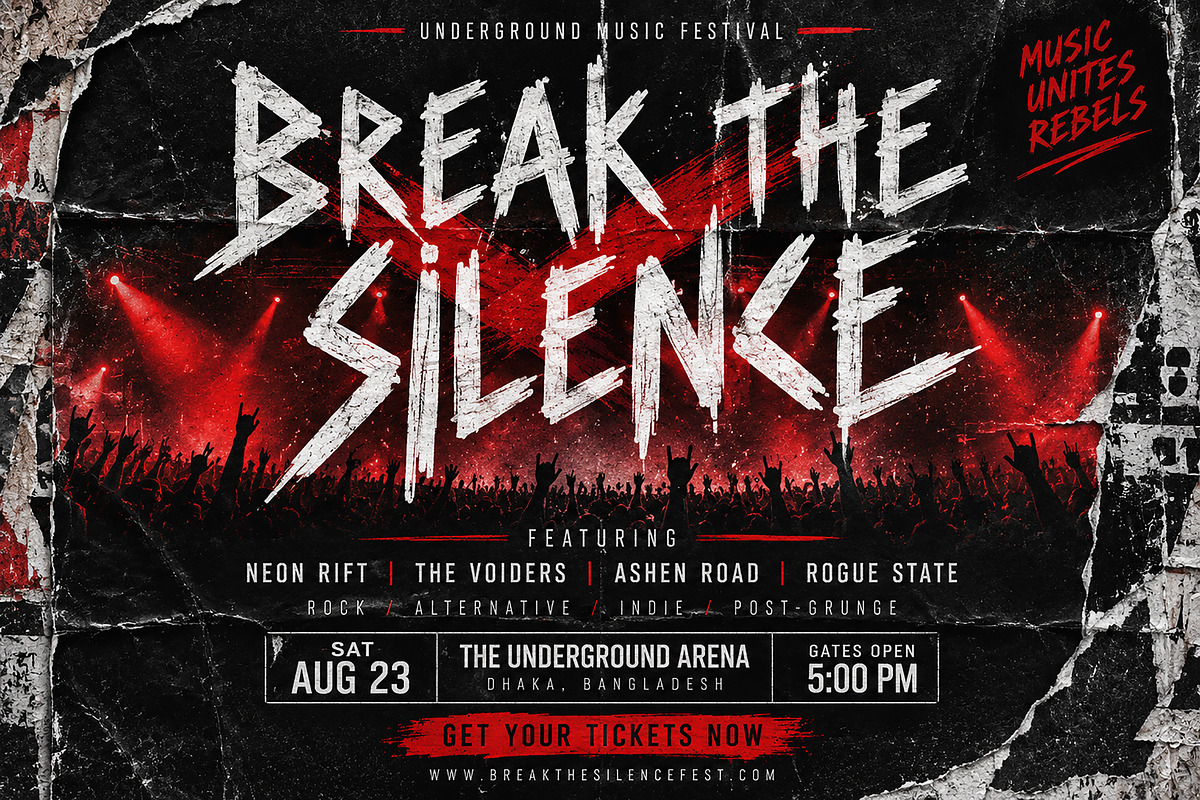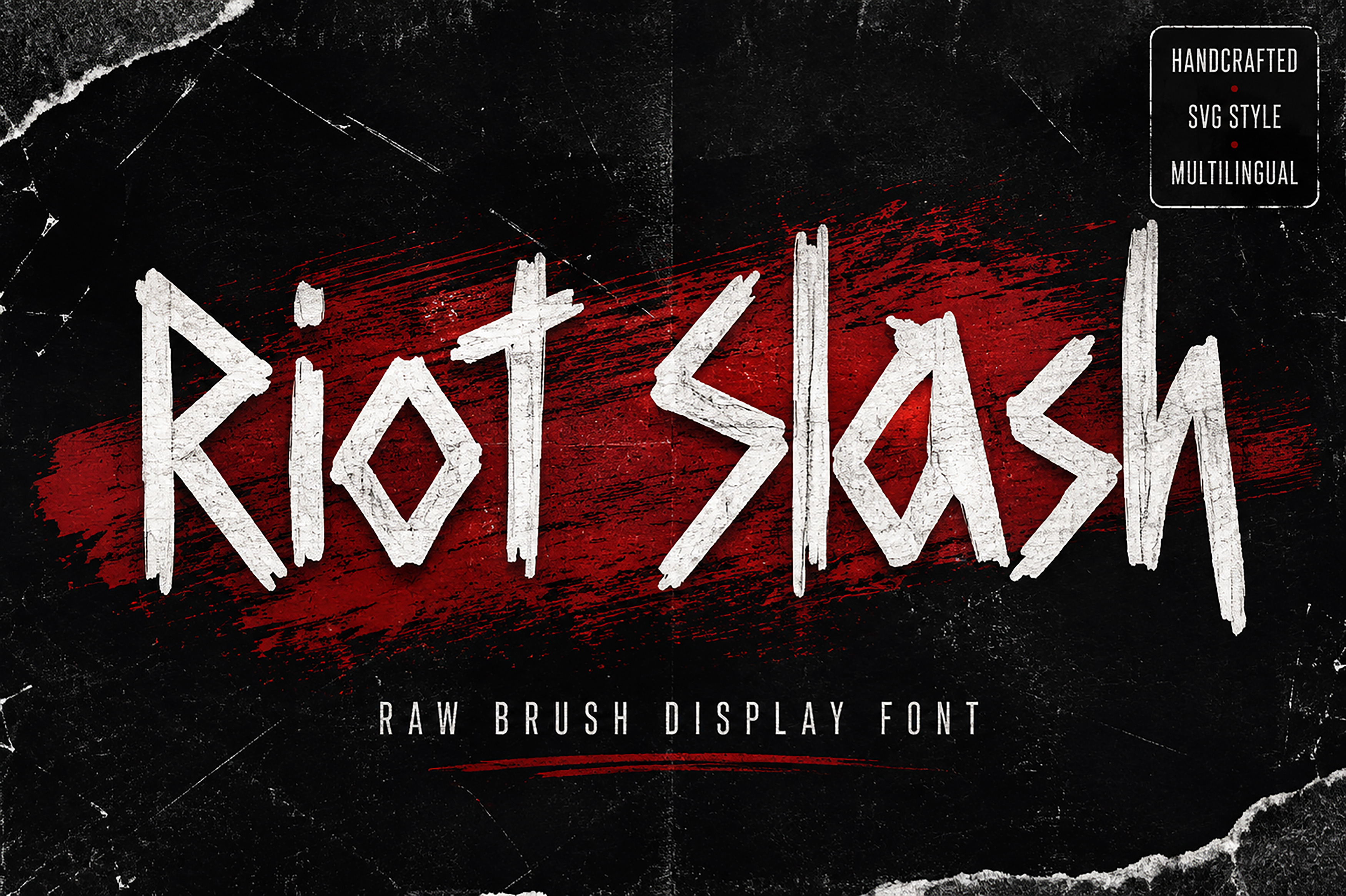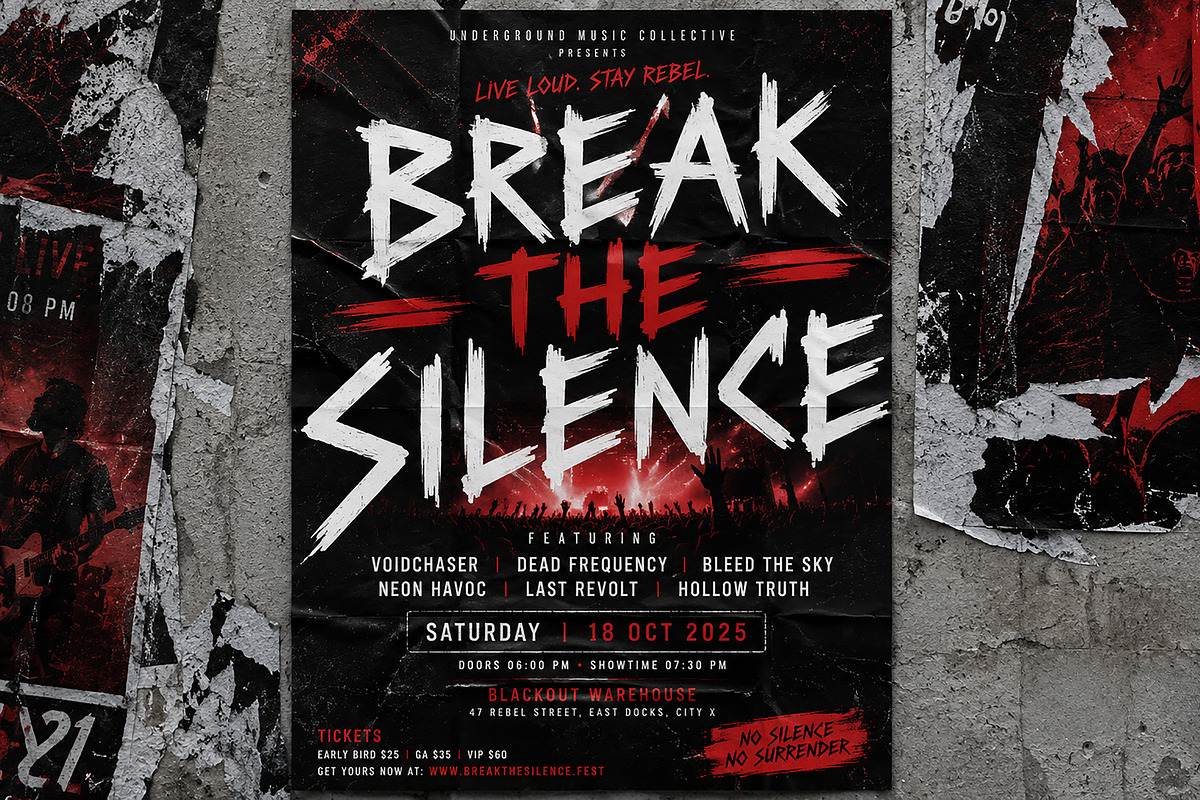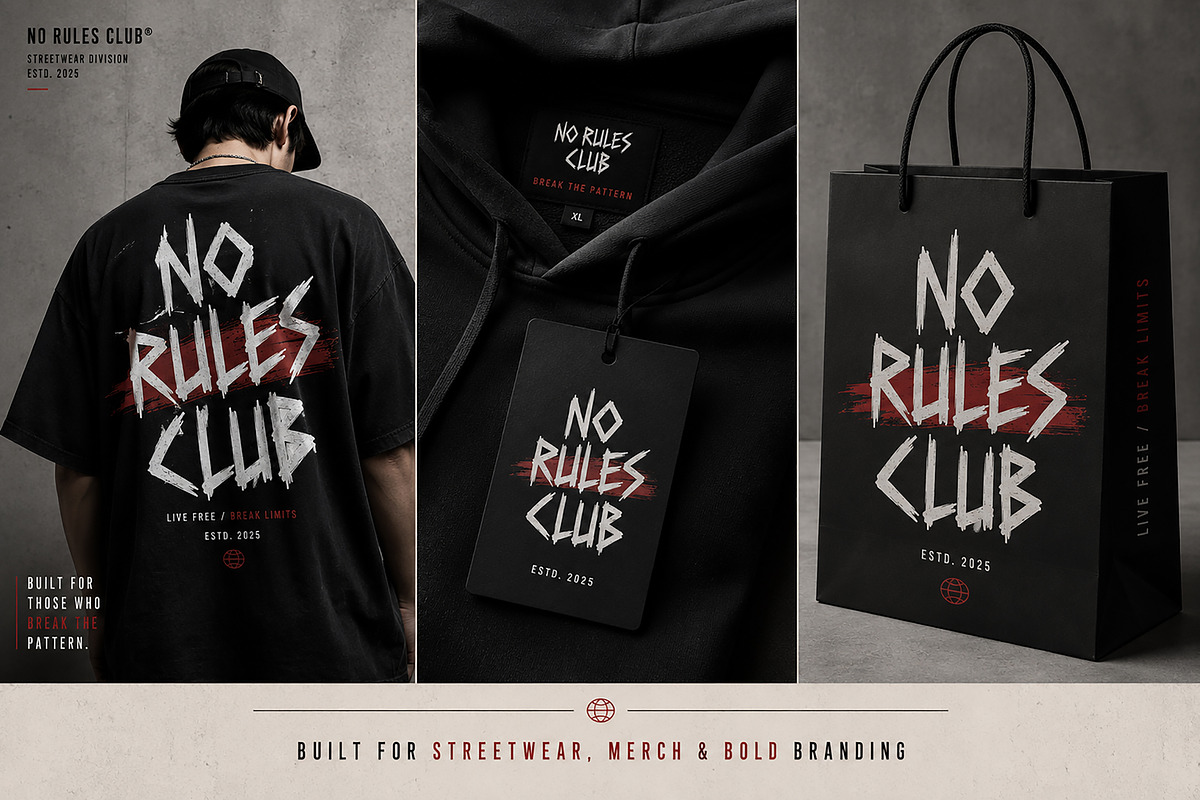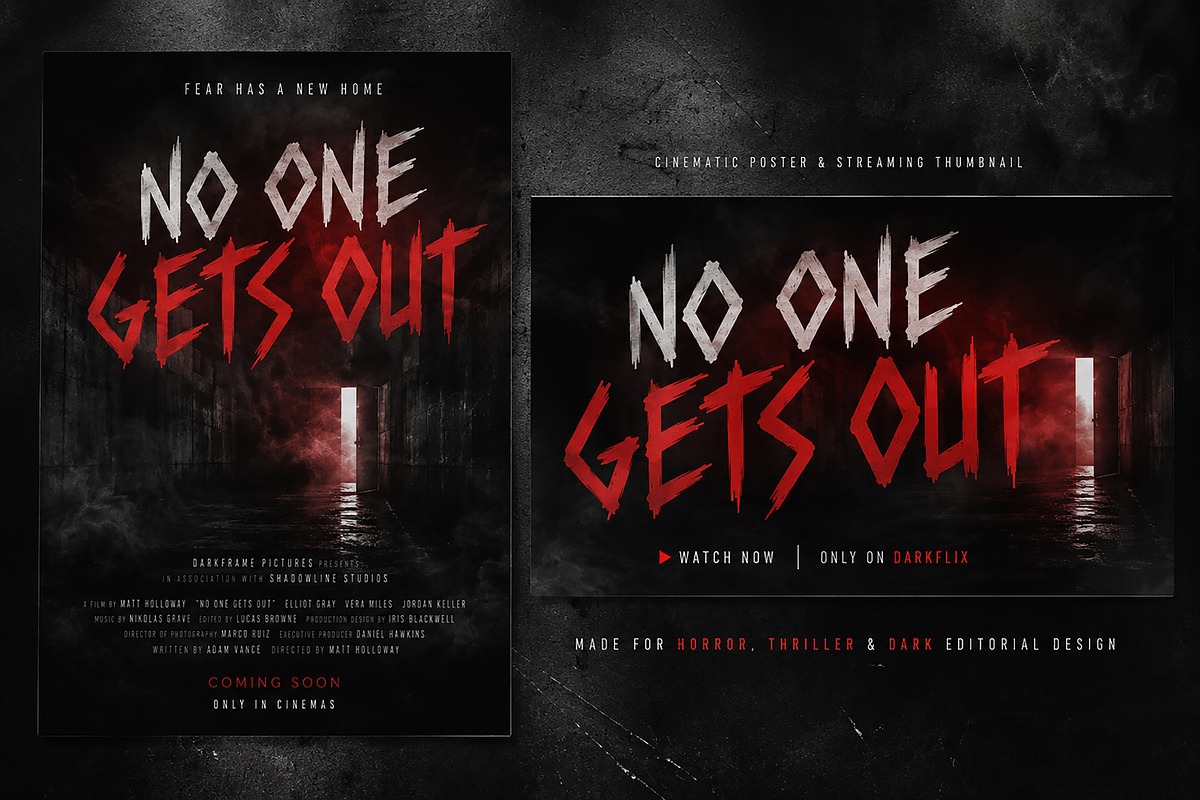
Riot Slash – Raw Brush Display Font
Riot Slash is a bold, handcrafted brush display font designed for creators who want loud, rebellious, and unforgettable typography. Inspired by underground culture, punk aesthetics, street art, and high-energy branding, this font delivers an authentic hand-painted look with aggressive brush strokes and rough edges.
Perfect for projects that demand attitude and impact, Riot Slash works beautifully for music festival posters, streetwear branding, gaming graphics, album covers, horror movie titles, sports campaigns, YouTube thumbnails, social media graphics, and bold editorial designs.
Every letter is crafted with an expressive, organic feel, giving your designs a unique handcrafted personality without sacrificing readability.
Whether you're designing for print or digital, Riot Slash helps your work stand out with a strong visual identity.
Streetwear Branding
Music Festival Posters
Concert Graphics
Album Covers
Horror Movie Titles
Gaming Designs
Esports Branding
Skateboard Graphics
Sports Campaigns
YouTube Thumbnails
Logo Designs
Packaging
Editorial Headlines
Posters
Event Branding
Sticker Designs
Creative Advertising
Handcrafted Brush Style
Bold Display Typeface
All Uppercase Letters
Basic Punctuation
This font is designed primarily for large titles, headlines, branding, posters, and display purposes. It is not intended for long paragraphs or body text.